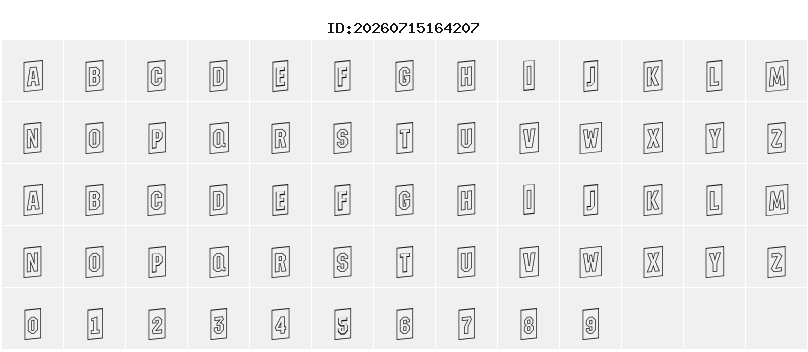
• Font Name: a_MeccanoCmOtlUp
• Font ID: ArsenalCompany: a_MeccanoCameoOutlineUp: 1999
• Full Font Name: a_MeccanoCameoOutlineUp
• Designer: W.Chufarofsky & M.Slutsker
About a_MeccanoCmOtlUp.ttf
a_MeccanoCmOtlUp.ttf is a modern, elegant sans-serif font designed for ultimate readability and visual harmony. Perfect for branding, headlines, web design, and print materials.